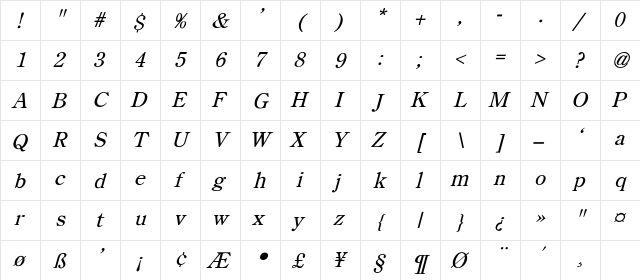
CenturyOldStyle-Light Italic Font Preview
CenturyOldStyle-Light Italic
CenturyOldStyle-Light Italic Font Details
Design Context for CenturyOldStyle-Light Typeface
CenturyOldStyle-Light carries the refined structure of traditional serif typography, with bracketed terminals and considered proportions that communicate credibility and craft. The slanted form adds forward momentum and visual energy. Its slender proportions lend an understated elegance to any composition.
Pro Tip: Set CenturyOldStyle-Light at slightly larger body copy sizes than you would a regular-weight serif to compensate for its delicate stroke contrast.